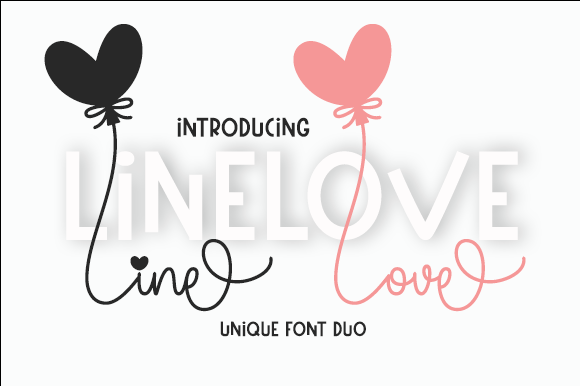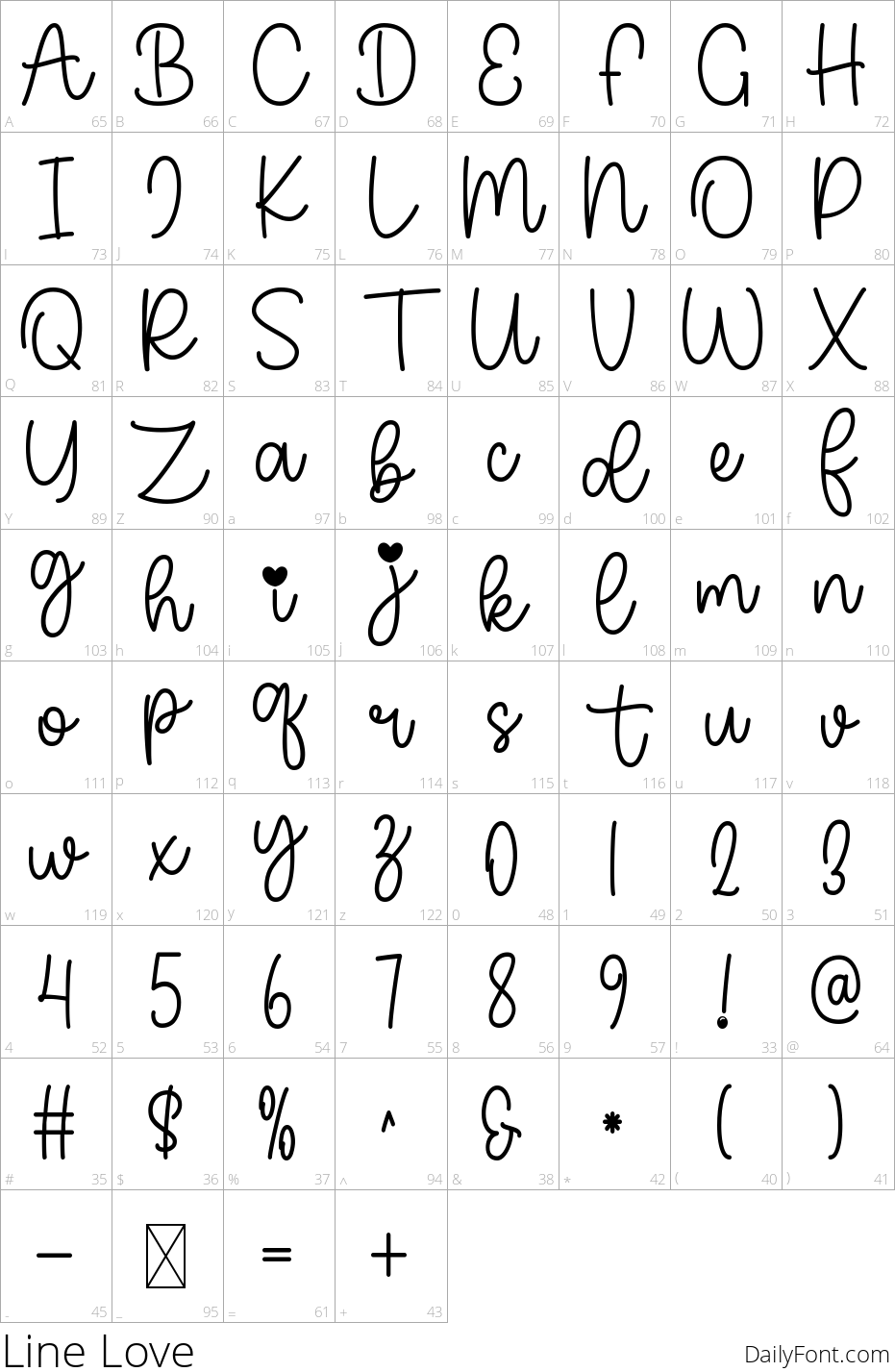
Line Love
Introducing Line Love, a delightful duo of handwritten fonts designed for versatility and charm. Comprising a graceful script and a vibrant display version, these fonts work harmoniously to elevate your creative projects, whether they're invitations, cards, or digital content. Line Love's whimsical design adds a chic and cheerful touch, making it perfect for crafters and designers alike.
Both fonts are PUA encoded, allowing you easy access to all their unique glyphs and ligatures. This feature enhances your ability to experiment with styling and create visually stunning typography. Whether used together or separately, Line Love inspires creativity and brings a personal flair to any design. Elevate your projects with this enchanting font duo today!